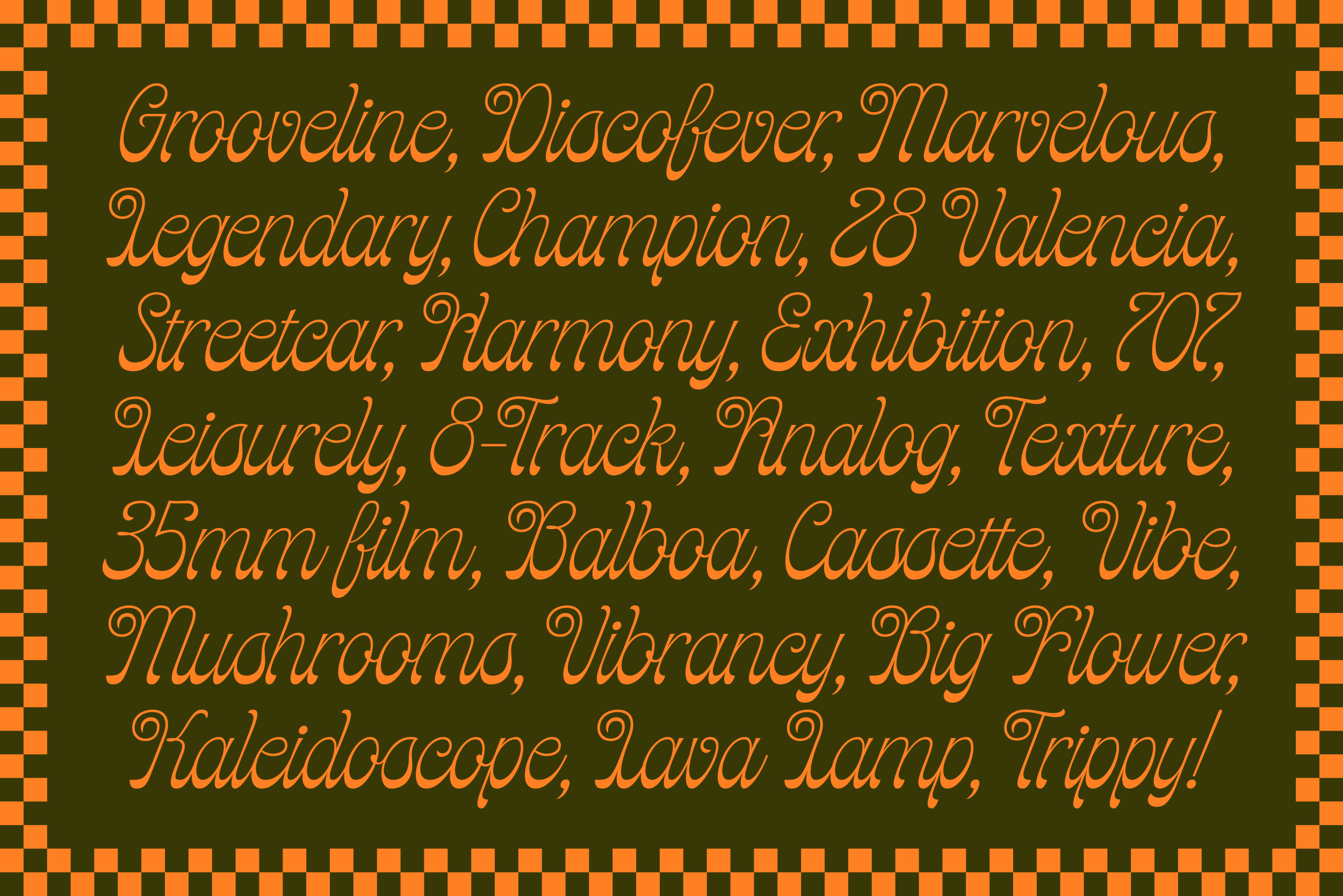
During my training at Type West 2023, my goal was to finish the year while challenging myself to break away from some of my standard type design practices. I aimed to create my very first script typeface, drawing inspiration from 1970s lettering.
With this I introduce Undertone, a funky and rhythmic script typeface including a thin, light, and regular style, stylistic alternates, and additional language support. Its variations in weight predominantly appear in the bottom parts of each letterform—either ascending or descending—while maintaining consistent styling in upper areas. This intentional design choice creates an infectious energy across the letters making Undertone an excellent display face capable of infusing projects with character and style.